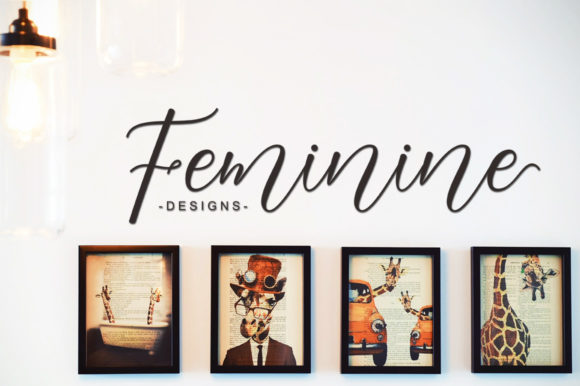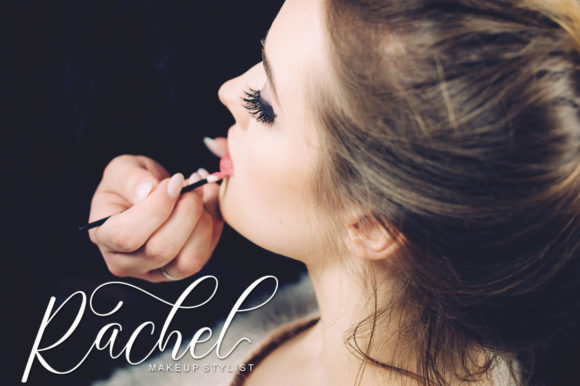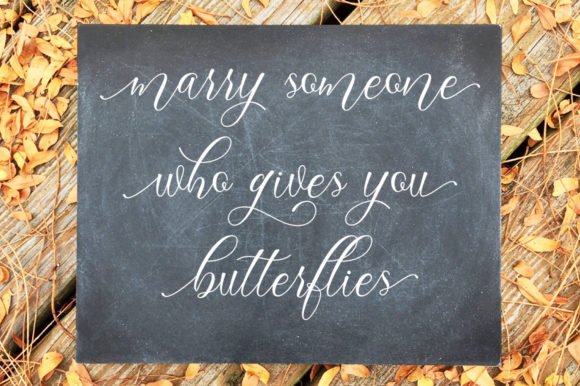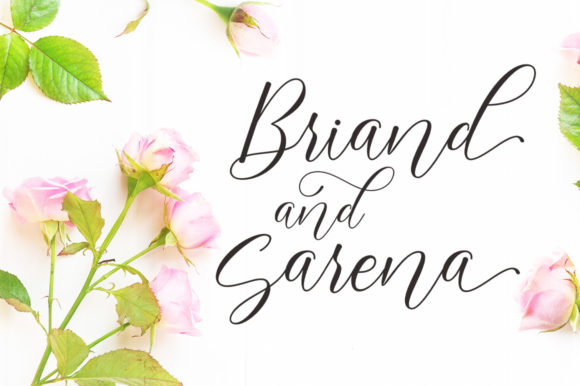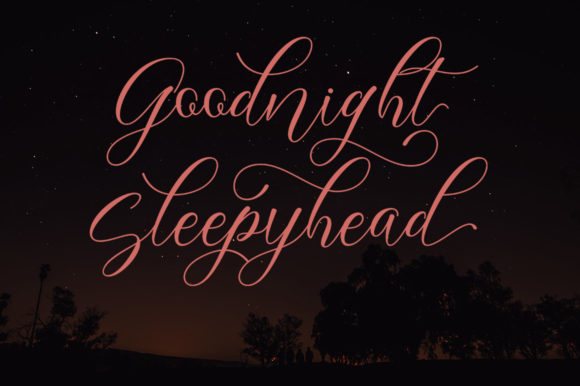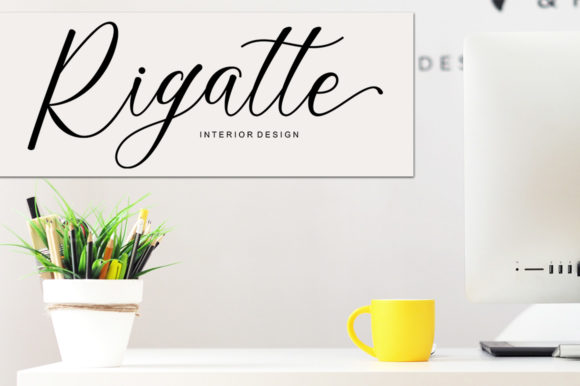
Introduction to Brinkley Font
Have you ever found yourself stuck in a creative rut, scrolling through design resources, searching for the perfect font to elevate your project? I know I have. It’s that moment when you stumble upon a font that instantly transports you to a world of possibilities. For me, that moment was when I discovered the Brinkley Font. Its elegant, handwritten feel and dynamic swashes immediately caught my attention, and I knew I had to learn more.
The Brinkley Font is more than just a pretty face – it’s a valuable asset for any designer looking to add a personal and romantic touch to their creative project. With its high-quality design and versatility, this font is perfect for designers seeking to create unique and eye-catching designs that stand out from the crowd.
Key Features of Brinkley Font
- Unique, modern aesthetic suitable for a variety of design applications
- Perfect design resource for graphic designers, digital artists, and creatives
Honest Review: Brinkley Font
As a designer, I’m always on the lookout for high-quality fonts that can elevate my creative projects. The Brinkley Font is a relatively new addition to the design resource landscape, but does it live up to its promise?
- ✨ The font’s unique and stylish aesthetic makes it perfect for creative projects that require a touch of sophistication.
- ⚠️ The font may not be suitable for body text, as it can be quite ornate and distracting.
- ⚠️ The font is only available in a few weights, which may limit its usability in certain design scenarios.
Overall, I’m impressed with the Brinkley Font’s potential and versatility. While it may not be perfect for every design project, it’s a great addition to any designer’s toolkit. With a bit of creativity and experimentation, the Brinkley Font can help take your design projects to the next level.
To get the most out of Brinkley Font, use it with a transparent background to create visually appealing designs. Common use cases include:
- Graphic design projects
Experiment with different font sizes and styles to achieve the desired effect. You can also use the font in combination with other design elements to create a unique and eye-catching design.
Alternatives to Brinkley Font
The Great Vibes Font is a beautiful, elegant script font perfect for creative projects that require a touch of sophistication. It’s ideal for use in titles, headings, and other design elements where a high-quality, cursive font is needed. Great Vibes Font can be downloaded for free and is available in a variety of formats, including transparent background options. Compared to Brinkley Font, Great Vibes has a more refined and classic look.
The Pacifico Font is a popular, modern script font that’s perfect for use in creative projects where a clean and minimalist design is desired. It’s ideal for use in headings, titles, and other design elements where a high-quality, cursive font is needed. Pacifico Font can be downloaded for free and is available in a variety of formats, including transparent background options. Compared to Brinkley Font, Pacifico has a more relaxed and casual look.
The Alex Brush Font is a beautiful, elegant script font perfect for creative projects that require a touch of sophistication. It’s ideal for use in titles, headings, and other design elements where a high-quality, cursive font is needed. Alex Brush Font can be downloaded for free and is available in a variety of formats, including transparent background options. Compared to Brinkley Font, Alex Brush has a more refined and classic look, making it ideal for use in high-end design projects.